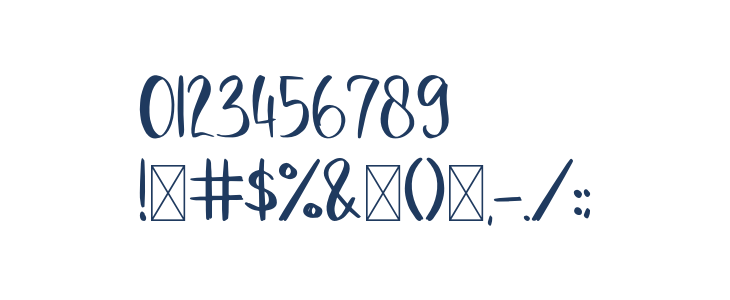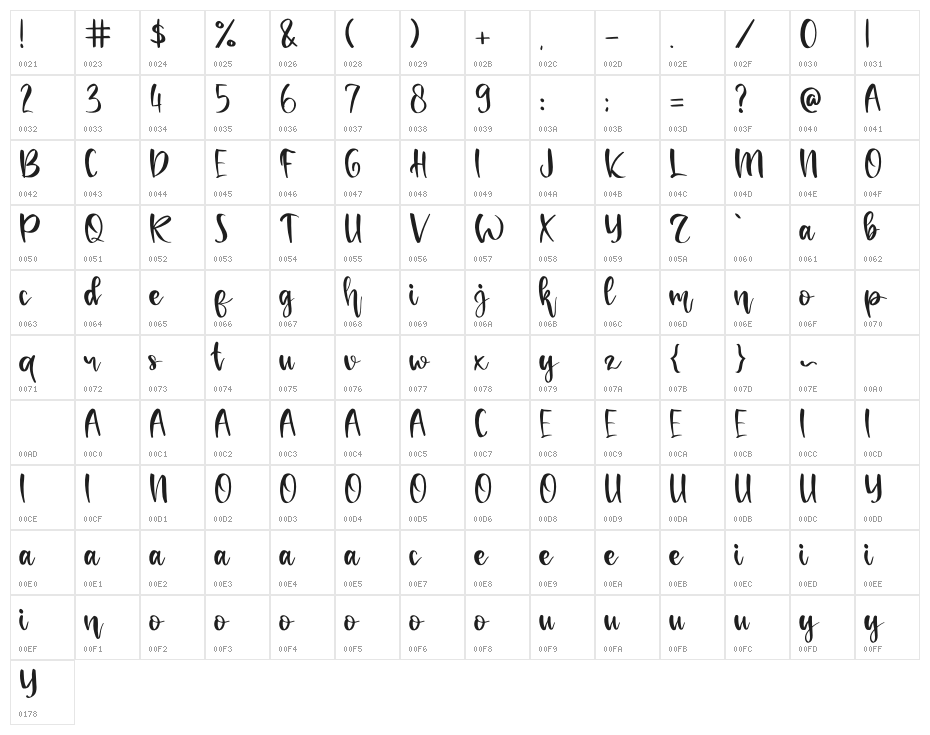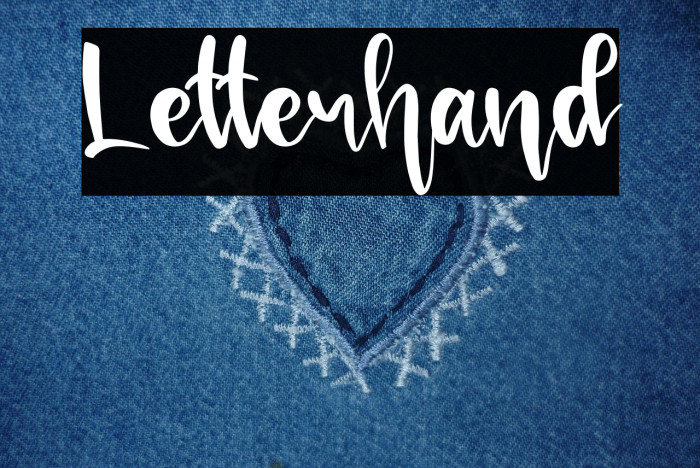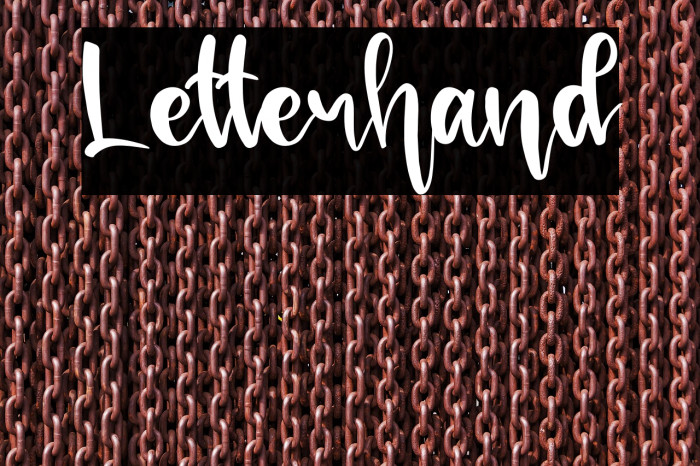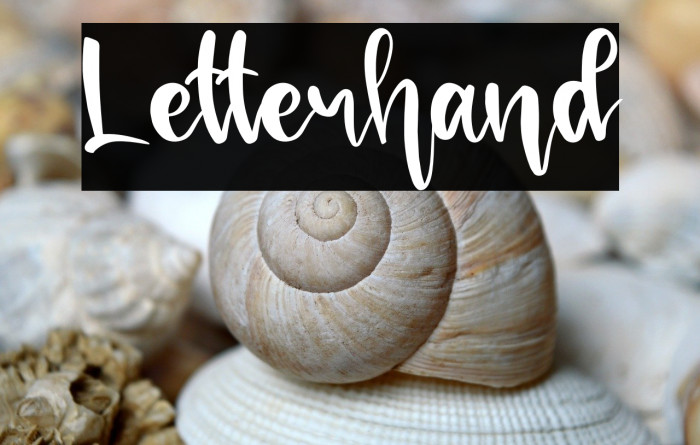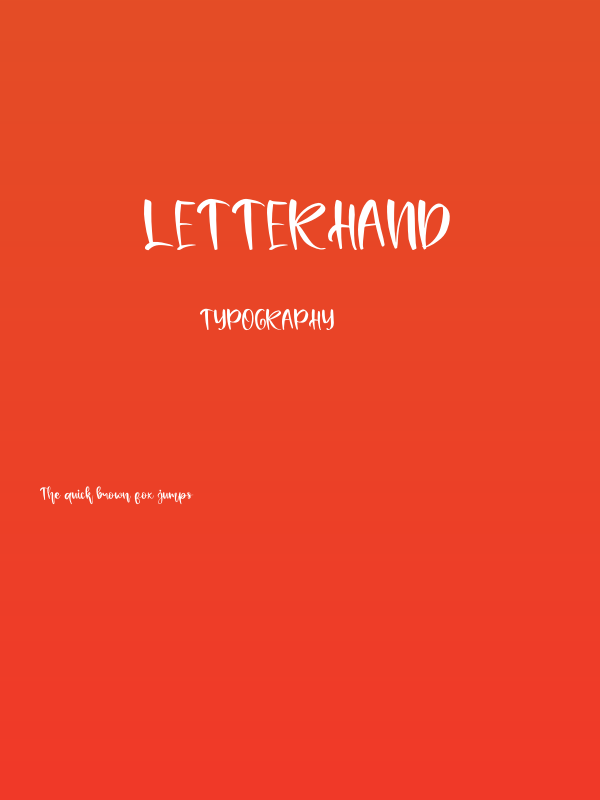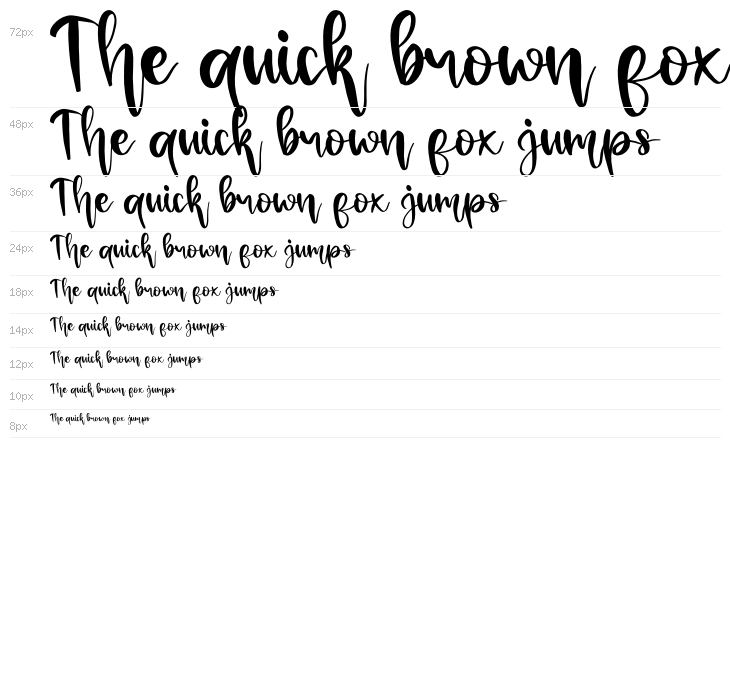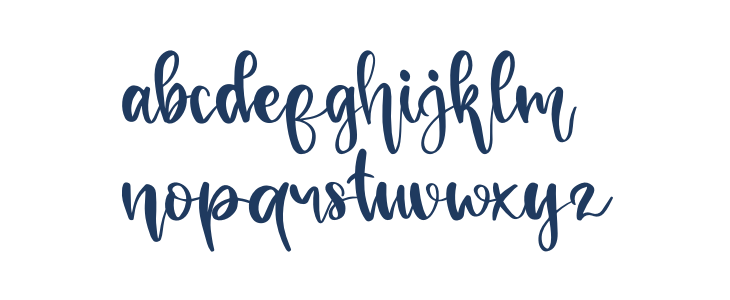
Letterhand Font
Letterhand Description
This font features a playful and artistic script style, characterized by its fluid and dynamic strokes. The letters are interconnected with a natural flow, giving it a handwritten appearance. The uppercase letters are bold and prominent, while the lowercase letters maintain a consistent style with elegant loops and curves. The numbers are clear and easy to read, matching the overall aesthetic of the font. Special characters are creatively designed, adding to the font's versatility. This font is ideal for projects that require a personal touch, such as invitations, greeting cards, and creative branding.
| Use Case | Logos, Headlines, Creative projects |
| Proposed Projects | Ideal for invitations, greeting cards, creative branding, and any project requiring a personal touch. |